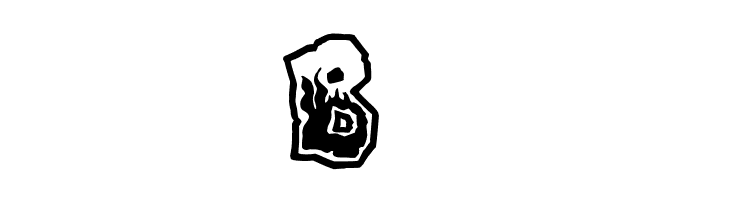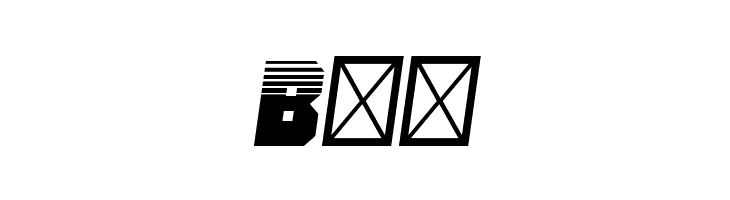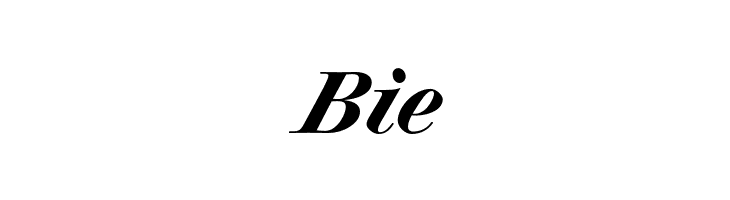
A high-contrast, modern serif font with elegant and stylish features.
A modern serif font with high contrast and sharp serifs, combining elegance and boldness.
An elegant script font with intricate swashes and high contrast, perfect for formal designs.
A bold, rugged font with jagged edges and a distressed, hand-drawn appearance.
A bold, futuristic font with angular lines and a striped pattern.
An elegant serif font with high contrast and a slight italic slant, perfect for classic and modern designs.
A bold, italicized serif font with high contrast and elegant style.
An elegant serif font with high contrast and refined details.
A sophisticated serif font with high contrast and angular serifs.
A modern, elegant font with high contrast and distinctive serifs.